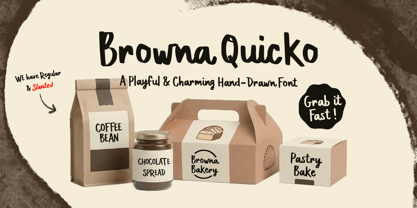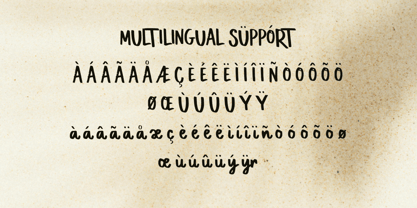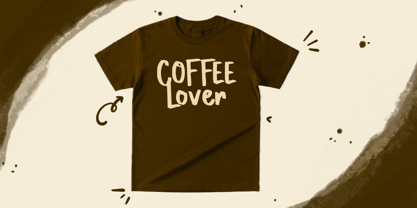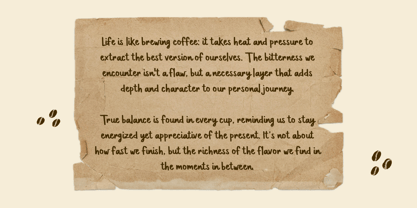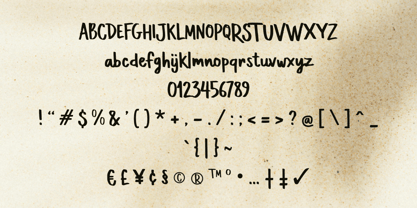
Browna Quicko
The Browna Quicko Font Family was designed by Wahyu Eka Prasetya, Dian Angga Marytama and published by Letterytz CalliType. Browna Quicko contains 2 styles and family package options. More about this family
Browna Quicko – Playful & Charming Hand-Drawn Font
Browna Quicko is a charming and lively hand-drawn font, perfect for adding a warm, personal, and artistic touch to your designs. Handcrafted with a focus on organic shapes, this font boasts a playful yet versatile feel, making it an ideal choice for food packaging, bakery branding, coffee shop menus, and apparel.
Now featuring both Regular and Slanted styles, Browna Quicko offers even more flexibility for your creative workflow. Whether you need the grounded, upright feel of the Regular version or the energetic, forward-leaning motion of the Slanted style, this font ensures a sense of authenticity and handcrafted comfort in every project.
✨ Features:
✔️ 2 Styles: Regular & Slanted
✔️ Hand-lettered, organic hand-drawn style
✔️ Playful and charming character shapes
✔️ Perfect for branding, logos, food packaging, and merchandise
✔️ Multilingual support
Let Browna Quicko bring creativity and a cozy personality to your next design project!
Designers: Wahyu Eka Prasetya, Dian Angga Marytama